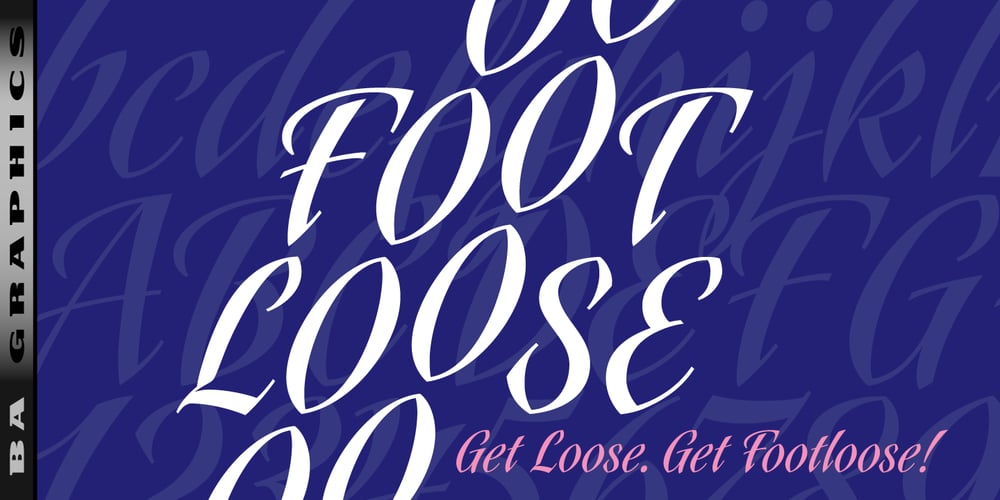
Footloose Font Family was designed by Bob Alonso, John Bomparte and published by BA Graphics. Footloose contains 1 styles and family package options. Footloose was a work in progress when its original designer, my friend and colleague Bob Alonso, passed away. Back then just 14 lowercase letters were designed so far. Several years have since gone by, but lately I took on the task of developing Bob’s design into a full-fledged font. The distinctive style of his supplied letterforms provided much inspiration. In blocks of short text there is a dynamic that communicates much verve and vigor, owing in part to gracefully curving lines and high contrast of stroke weight. I guess you could say that this project has been a sort of “passing on of the baton”; and I trust that Bob would have been pleased with the outcome.